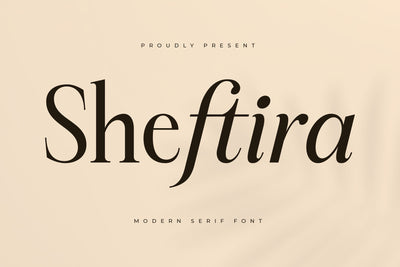
Sheftira - Modern Serif Font
Sheftira - Modern Serif Font , from Letterena, is a Luxury Serif font, suitable for any projects such as: logos, branding projects, homeware designs, product packaging, mugs, quotes, posters, shopping bags, t-shirts, book covers, name card, invitation cards, greeting cards, label, photography, watermark, special events, and all your other luxury and beautiful projects that need a Luxury Serif taste.